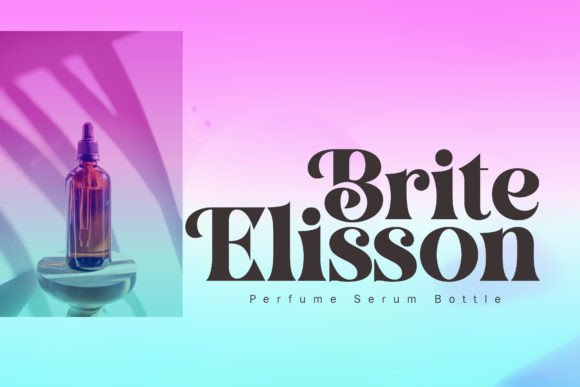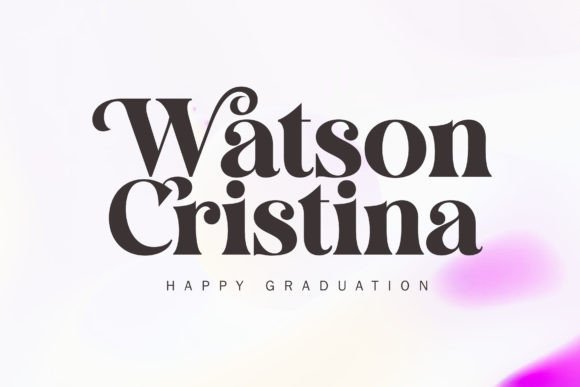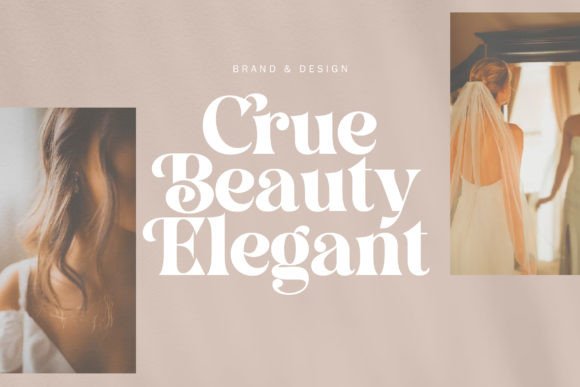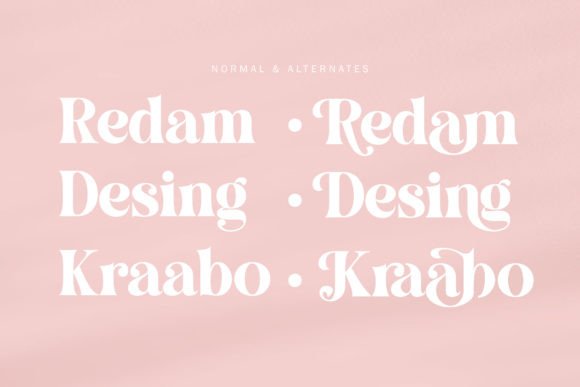
Discover the Timeless Charm of Bosento Font
Have you ever been browsing through a vintage bookstore, and the elegant typography of the book covers catches your eye? The serifs, the ligatures, the overall aesthetic – it’s a moment that sparks creativity and inspires designers. For those who crave that same timeless charm in their designs, look no further than the Bosento Font.
| 👤 Author | gatype |
Bosento Font is a versatile serif font designed for a wide range of applications, from branding and poster designs to t-shirts and editorial content. Its bold and elegant look makes it perfect for children’s designs, invitations, and more. With a plethora of glyphs and ligatures, Bosento Font offers endless possibilities for designers to create stunning and professional-looking designs.
As a valuable addition to any designer’s toolkit, Bosento Font is a must-have for anyone looking to elevate their creative projects. Its unique blend of classic and modern elements makes it an excellent choice for designers seeking to create distinctive and memorable designs.
Bosento Font Key Features
- Unique Characteristics: Bosento Font features a distinctive, hand-drawn style with intricate details and flourishes, giving it a unique and elegant appearance.
Bosento Font Review
Overall, I think the Bosento Font is a beautiful addition to any design project. It has a unique and elegant style that can elevate the look of your work. ✨ The font is particularly well-suited for titles, headings, and other prominent text elements.
- ✨ Elegant and refined design
- ✨ Versatile and suitable for various design projects
- ✨ High-quality rendering
- ⚠️ The font may be too ornate for some designs, which can make it difficult to read at smaller sizes
- ⚠️ Some characters may not be as polished as others, which can create an inconsistent look
- ⚠️ Limited language support, which may limit its use in multilingual projects
Overall, I would recommend the Bosento Font for projects where a touch of elegance is desired. While it may have some limitations, its unique style and high-quality rendering make it a valuable addition to any designer’s toolkit.
Tips for Getting the Most Out of Bosento Font
Use Bosento Font to create bold, eye-catching headlines and titles.
Combine Bosento Font with other fonts to create a unique and stylish design.
Experiment with different font sizes and colors to add emphasis and visual interest.
Bosento Font is ideal for:
Designing logos and branding materials.
Creating eye-catching social media graphics.
Adding a touch of elegance to presentations and reports.